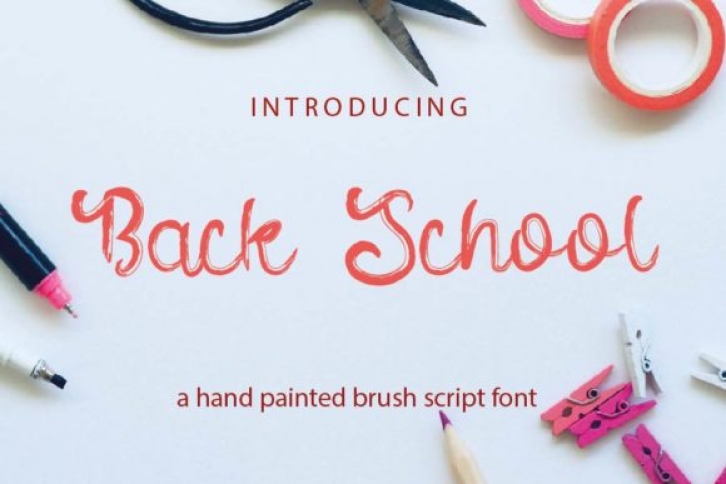
Back School is a sweet and flowing handwritten font, designed with the help of a brush pen. Fall in love with its incredibly versatile style and use it to create gorgeous wedding invitations, beautiful stationary art, eye-catching social media posts, and much more!